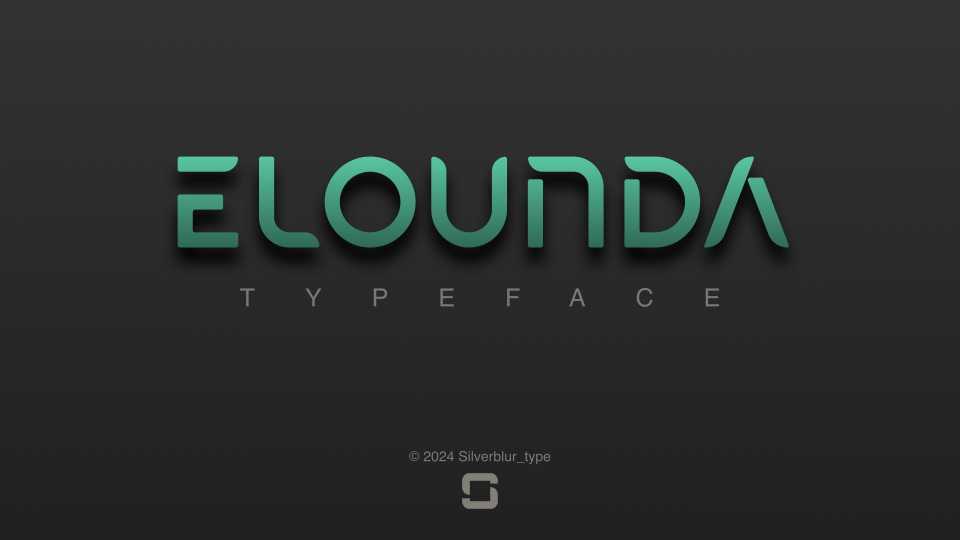
Download Elounda font, a geometric and minimalistic typeface constructed with a few geometric shapes with constant thickness. This font is suitable for graphic projects, logos and branding.
Designer: Silverblur_type